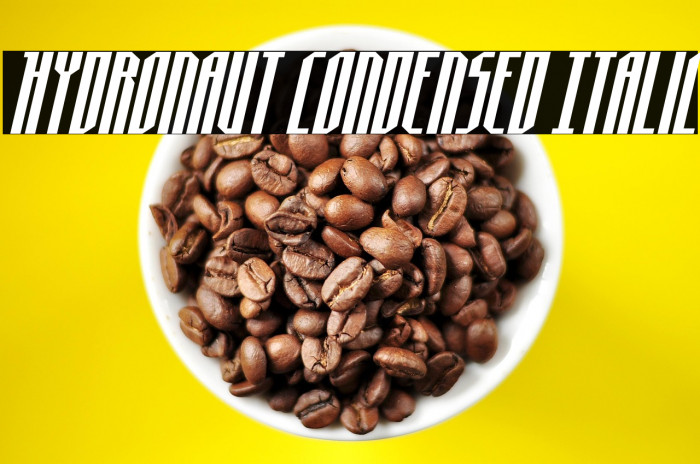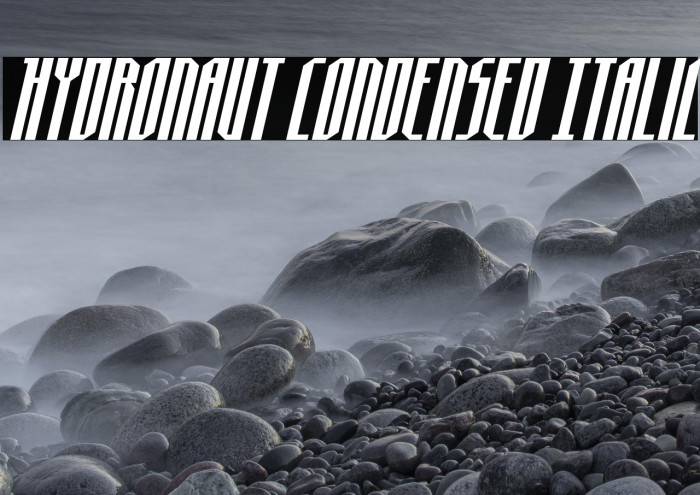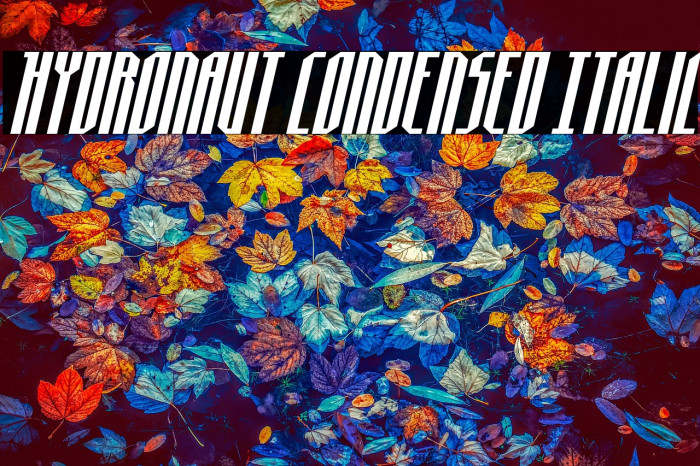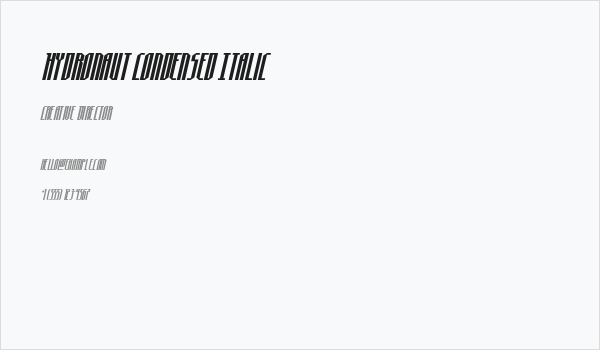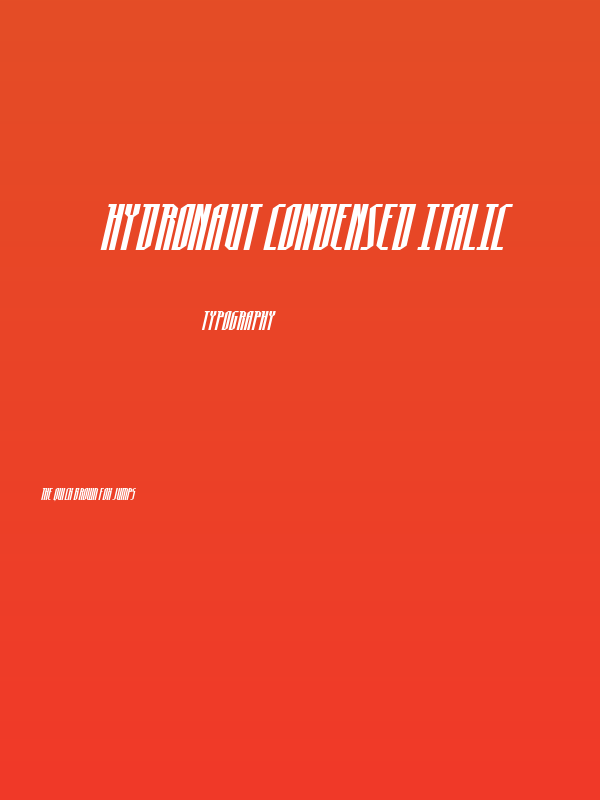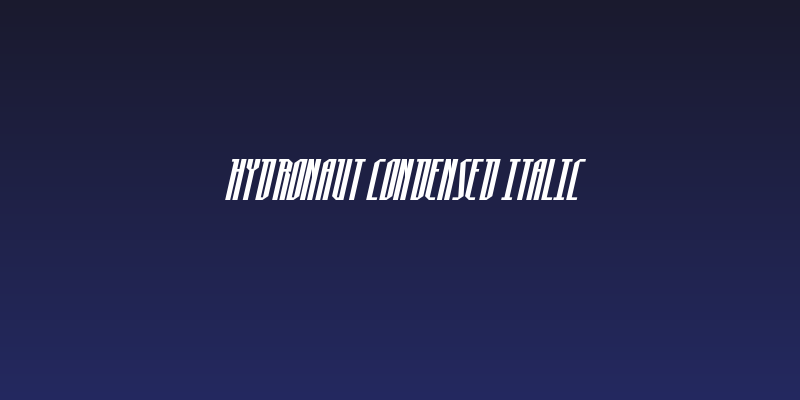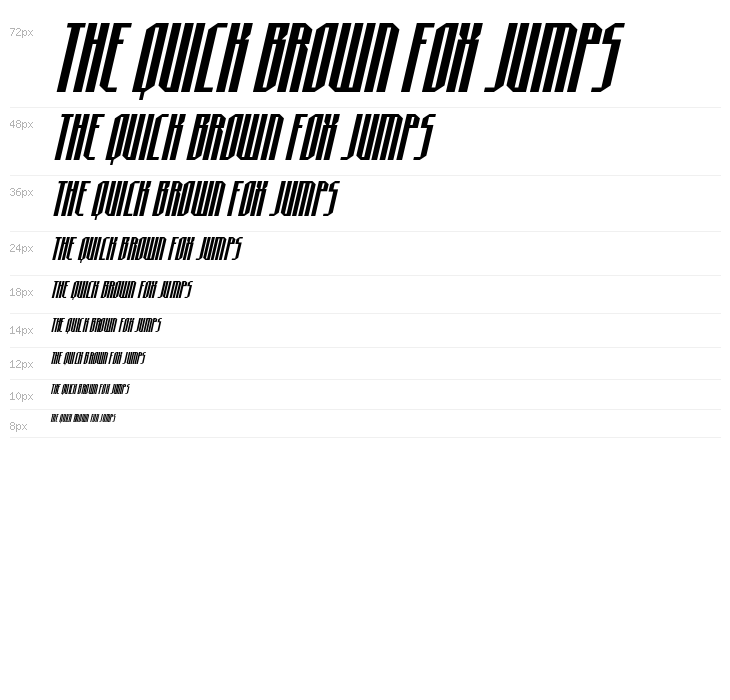
Hydronaut Condensed Italic Font
Hydronaut Condensed Italic Description
This font features a bold, condensed style with a distinct italic slant, giving it a dynamic and modern appearance. The characters are elongated and narrow, creating a sleek and streamlined look. The uppercase and lowercase letters maintain a consistent height, enhancing readability while preserving the font's unique style. The numerals and special characters are designed to match the overall aesthetic, ensuring uniformity across all text elements. The sharp angles and clean lines contribute to a futuristic and edgy vibe, making it suitable for eye-catching designs.
| Proposed Projects | Ideal for futuristic branding, sports team logos, dynamic posters, and modern web design. |